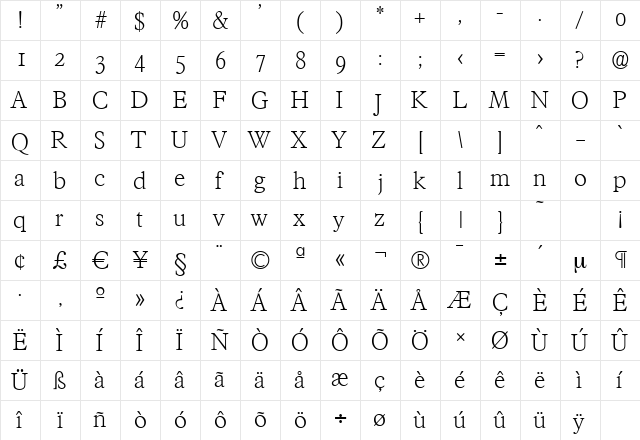
FranciscoSerial-Xlight Regular
Design Context for FranciscoSerial-Xlight Typeface
FranciscoSerial-Xlight is a composed and adaptable typeface that performs quietly and consistently across a wide range of design contexts. Its slender proportions lend an understated elegance to any composition.